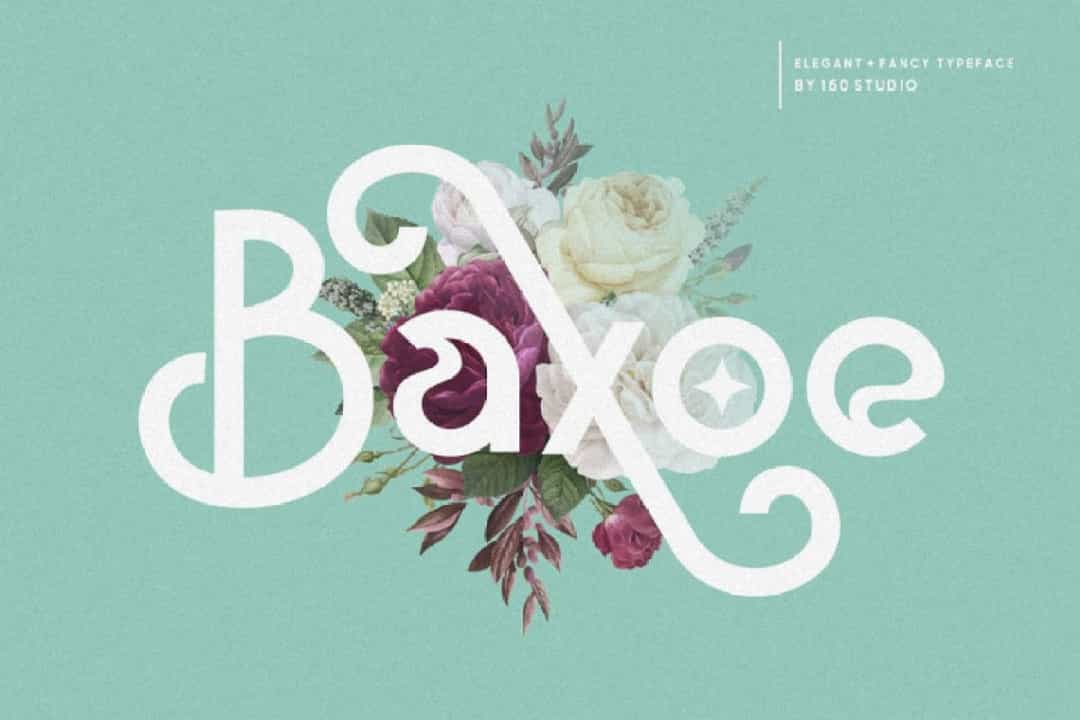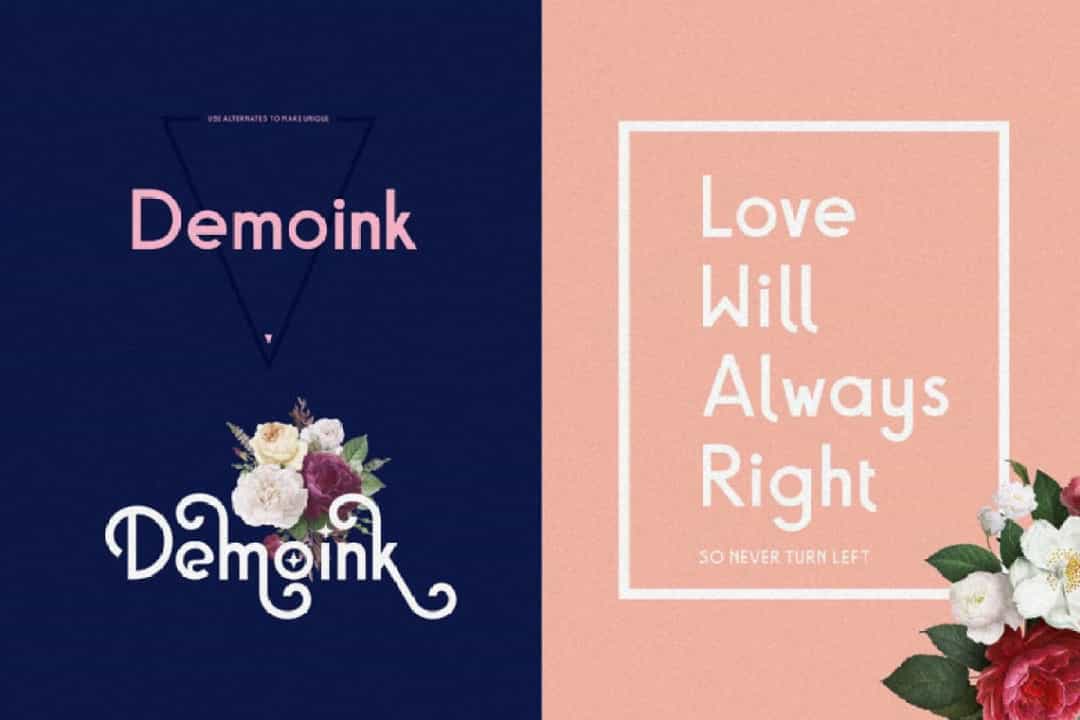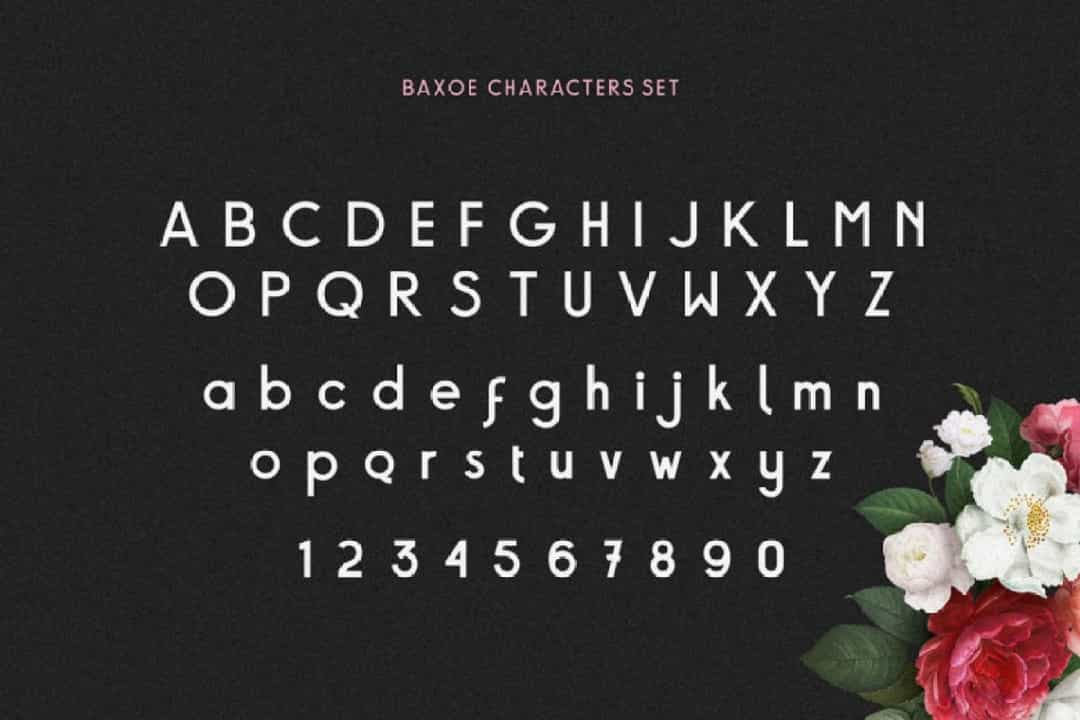
Baxoe Sans Fancy Typeface
BAXOE is an elegant and fancy typeface! Boasting simplicity and sophistication thanks to a host of alternative characters, this font provides an original touch in any work project. BAXOE can be used for all sorts of creative projects including cards, magazines and logos; DIY designs; invite cards; quote wedding ideas and much more.